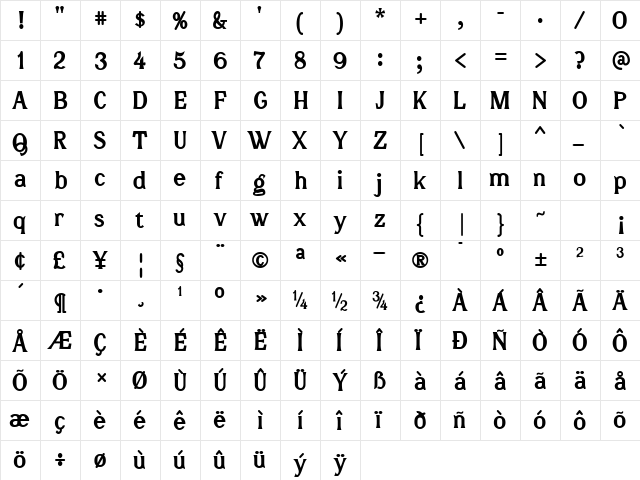
DavidFarewell Bold Font Preview
DavidFarewell Bold
DavidFarewell Bold Font Details
Design Context for DavidFarewell Typeface
DavidFarewell offers clean, dependable letterforms without strong stylistic allegiance, making it a practical choice for designers who need flexibility. Its bold stroke weight gives it real presence on the page.